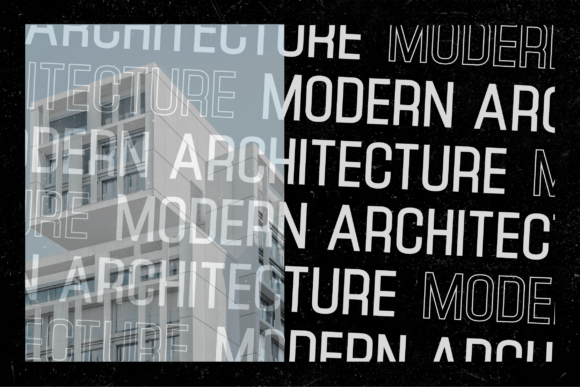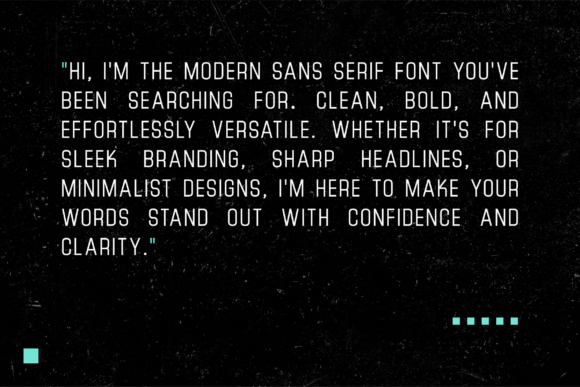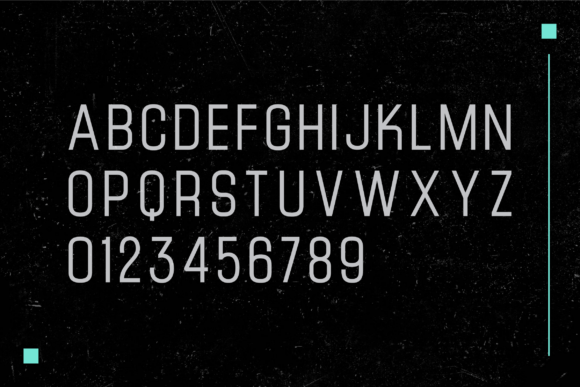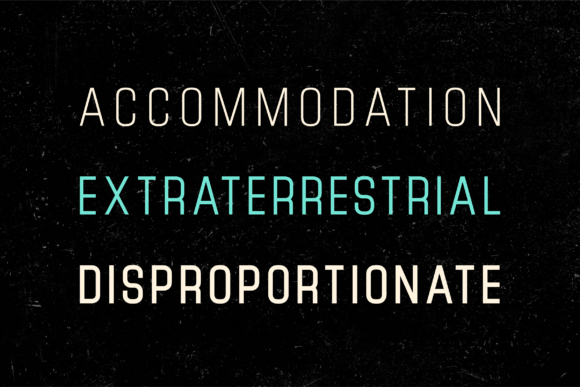
Introduction to Konstanz Font
You’re in the middle of a creative project, and everything’s coming together perfectly – the colors, the composition, the message. But then, you realize that the font just doesn’t feel quite right. It’s a common dilemma that many designers face, and it’s exactly why the Konstanz Font Family was created.
With its 5 distinct weights, Konstanz Font offers unparalleled versatility, making it an invaluable design resource for any creative project. From magazine layouts to film posters, this meticulously crafted sans-serif font family seamlessly adapts to any style or theme, providing a perfect balance between sophistication and simplicity.
Key Features of Konstanz Font
- High-quality font designed for creative projects, perfect for designers looking for a unique design resource.
- Designed at a high resolution of 300 DPI, ensuring crisp and clear text output in print and digital applications.
- Unique characteristics include a modern, elegant aesthetic and a wide range of font sizes and styles.
Honest Review: Konstanz Font
I recently had the chance to work with the Konstanz Font, and I must say it’s been a game-changer for my creative projects. The free download was a major bonus, and I was excited to see how it would perform.
The font’s clean and elegant design makes it perfect for a variety of applications, from business cards to website headers. The transparent background allows for seamless integration with any design resource, making it a versatile choice for designers.
- High-quality design that’s both modern and timeless ✨
- Wide range of applications, from print to digital ✨
- Only available in a few weights, which may limit its versatility ⚠️
- Not suitable for extreme typography or experimental designs ⚠️
Overall, I’m thoroughly impressed with the Konstanz Font. It’s a solid choice for any designer looking for a high-quality, reliable font that’s perfect for a variety of creative projects.
Tips for Getting the Most Out of the Konstanz Font
Experiment with different font sizes, colors, and styles to create a unique look for your design project. Use the font in combination with other design elements to add depth and visual interest.
The Konstanz Font is ideal for creative projects that require a high-quality, professional-looking font. Use it for branding, marketing materials, or even digital art projects.